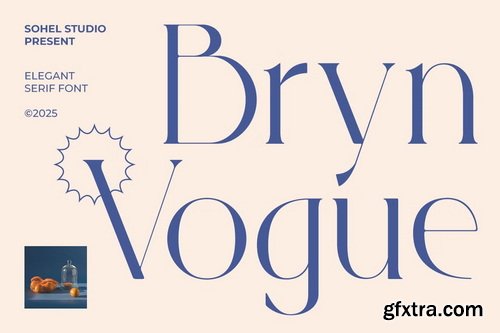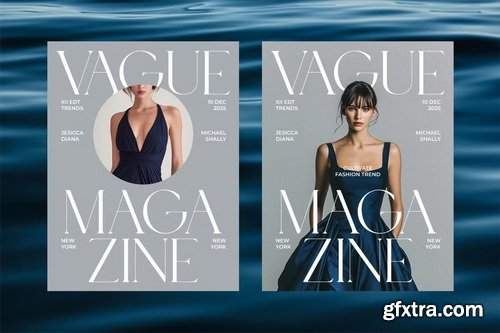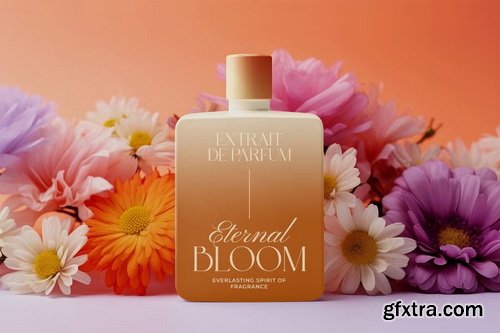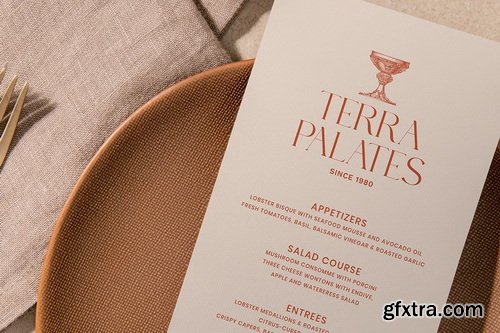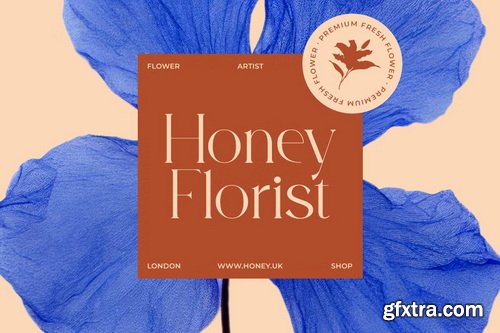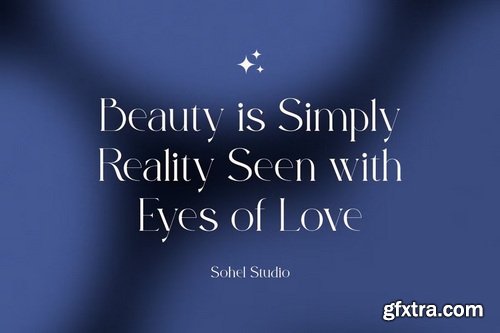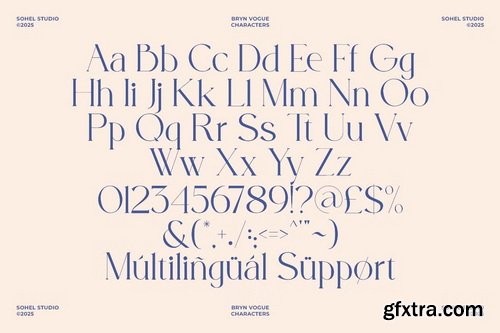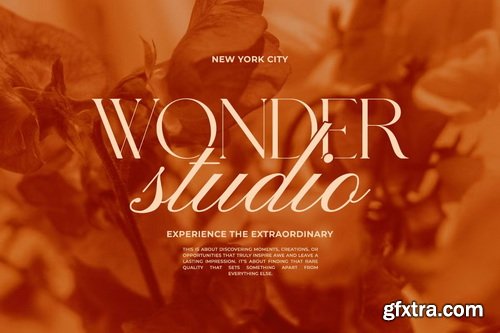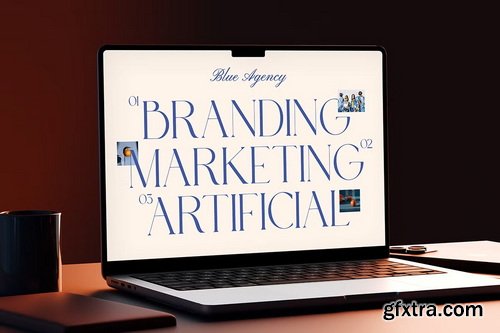
CreativeMarket - Bryn Vogue Elegant Modern Serif
- Bryn Vogue is a modern serif typeface exuding high fashion sophistication with a sharp editorial edge. Crafted to embody elegance and refinement, this font brings a sense of luxury and timeless style to any design. It combines the grace of traditional serif fonts with contemporary detail, making it both classic and current.
- Its letterforms are sculpted with high contrast strokes and stylish flares that command attention without overwhelming. The elongated stems and delicate curves present a poised silhouette, tailored for upscale aesthetics and modern visual storytelling.Designed especially for the fashion and lifestyle market, Bryn Vogue thrives in settings like luxury brand identities, beauty packaging, fashion magazines, high-end social media posts, and editorial layouts. The font’s effortlessly chic vibe also makes it perfect for lookbooks, product catalogs, and boutique branding.